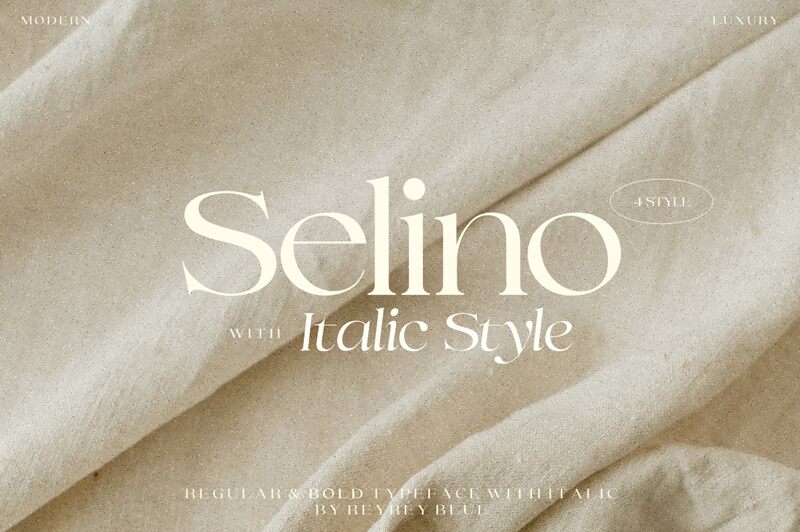
Selino Italic, crafted by ReyreyBlue, is a serif font that exudes elegance with a modern twist. Its flowing, italicized form lends a touch of sophistication and movement to the text, making it stand out with an air of refinement. The characters dance with grace on the page, inviting readers into a narrative that's both classic and contemporary.
Perfect for lending a chic and artistic feel to any project, Selino Italic is well-suited for branding materials, editorial work, and sophisticated invitations. Its versatility allows it to be an excellent choice for designers looking to infuse their creations with character and style without overwhelming the content. Selino Italic brings personality to print and digital canvases alike, bridging tradition with modern design sensibilities.